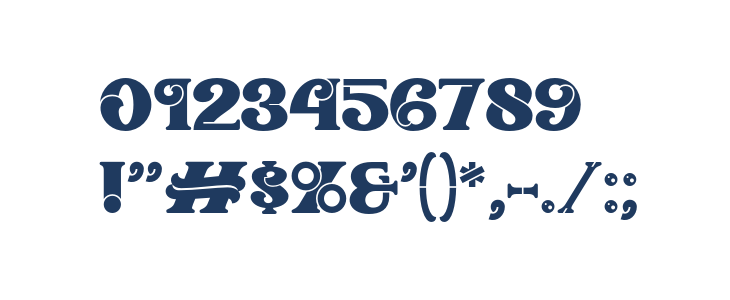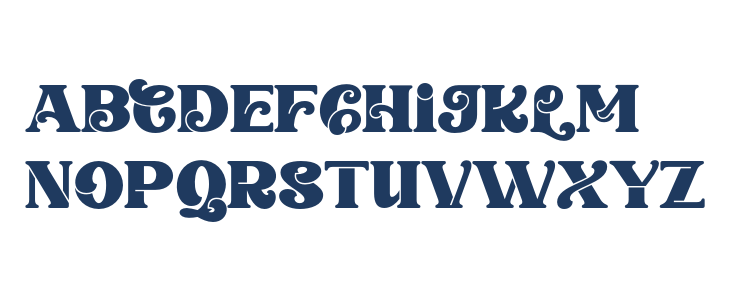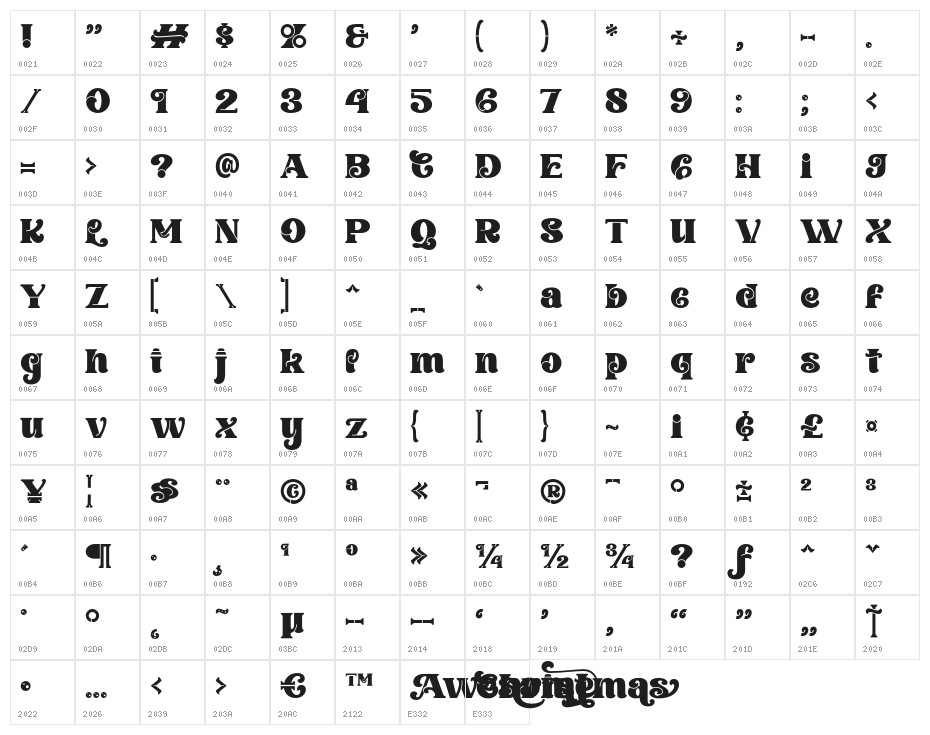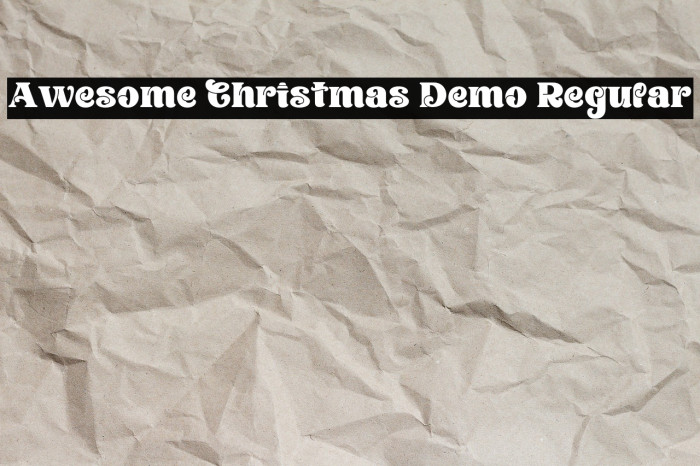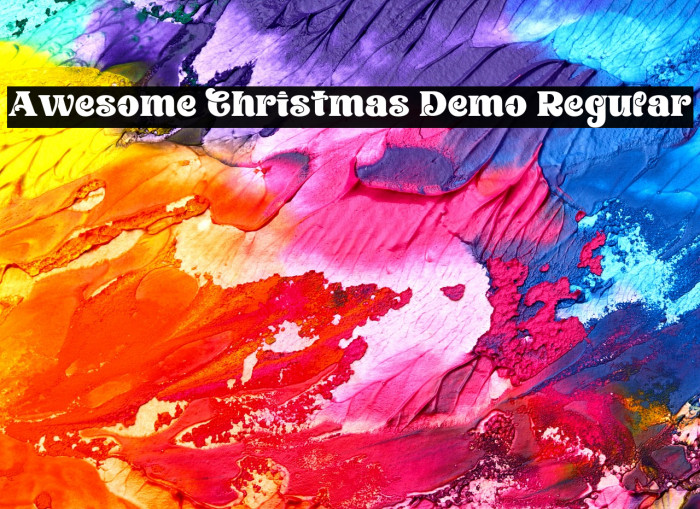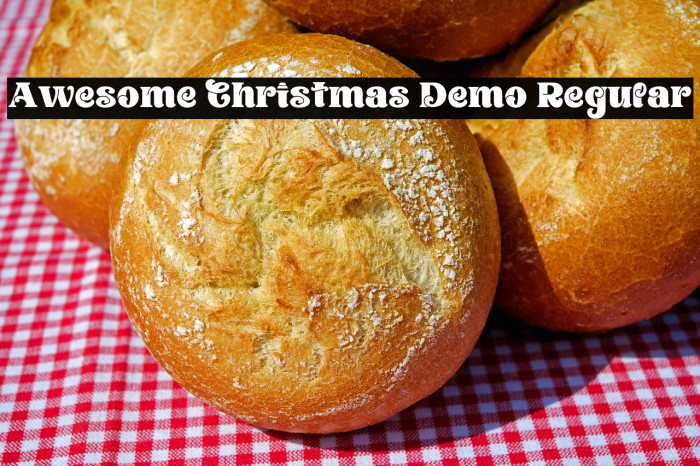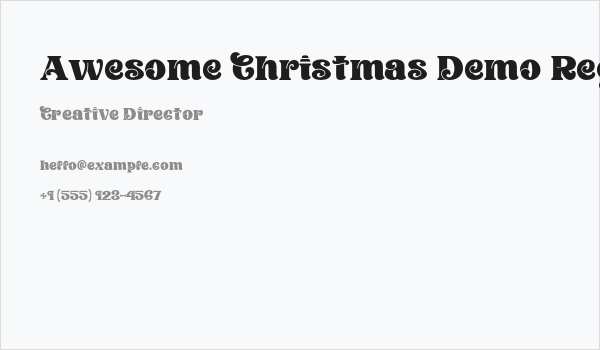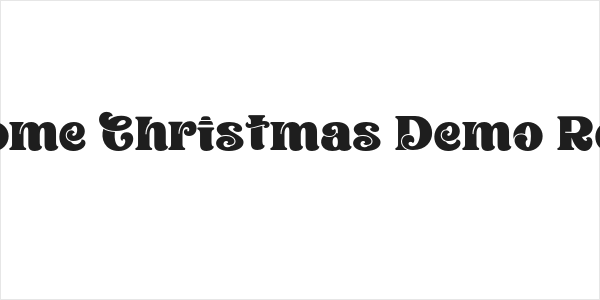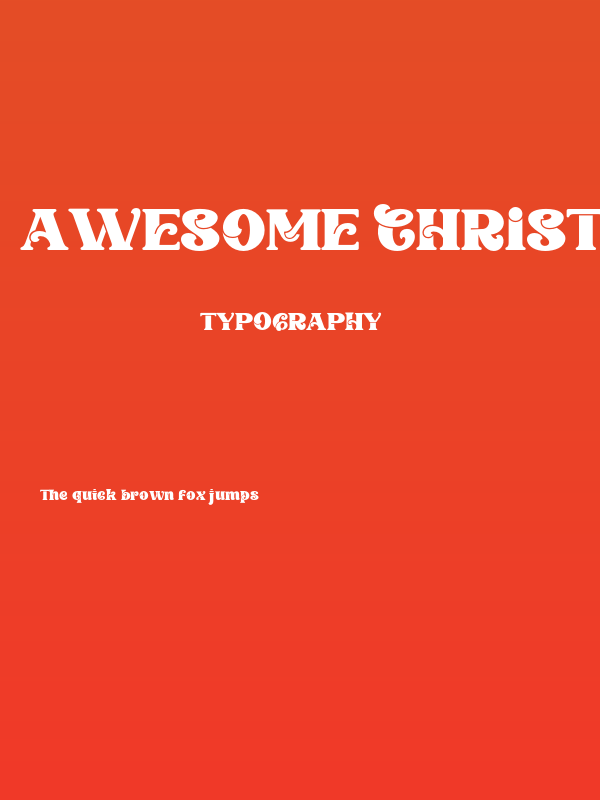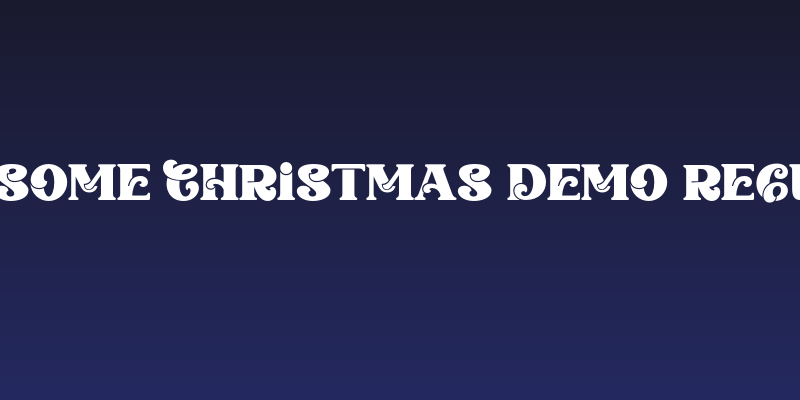
Awesome Christmas Demo Regular Font
Awesome Christmas Demo Regular Description
A bold decorative display font with playful swirls and curls integrated into the letterforms, featuring thick strokes, high contrast, and whimsical detailing that evokes a festive, ornamental feel.
| Overall Style | Decorative, Festive, Playful |
| Use Case | Headlines, Logos, Posters, Greeting cards |
| Proposed Projects | Holiday cards, event posters, festive branding, invitations, seasonal packaging. |